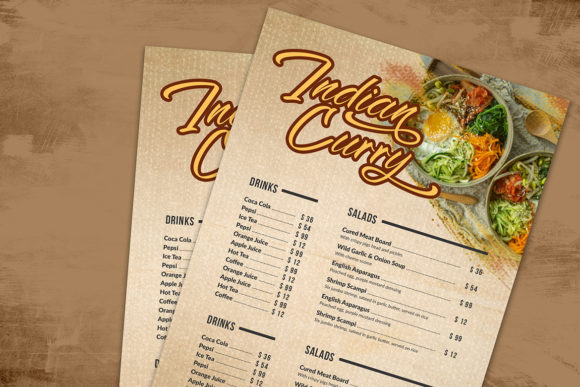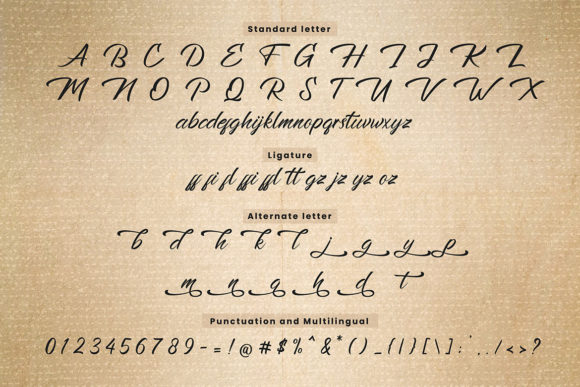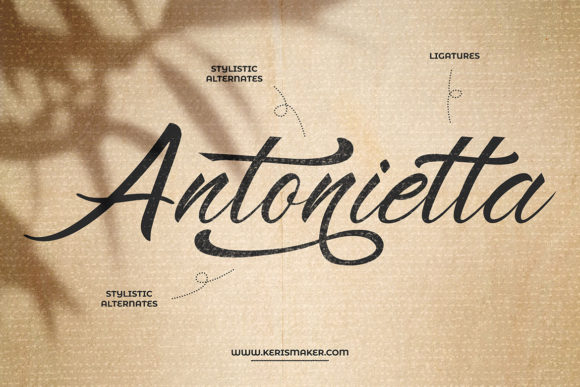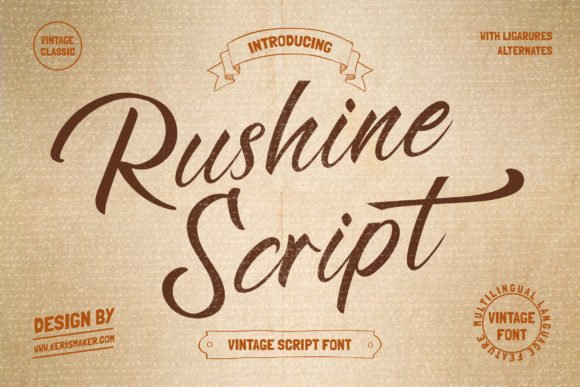
Introduction to Rushine Font
Say hello to Rushine Script, a vintage calligraphy brush stroke font.
This font is good for logo design, Social media, Movie Titles, Books Titles, short text even long text letters, and good for your secondary text font with sans or serif .
Key Features of Rushine Font
Why Choose Rushine Font?
Rushine Font offers exceptional quality and versatility, making it a valuable addition to your design toolkit. Whether you’re creating for personal projects or commercial use, Rushine Font delivers professional results.